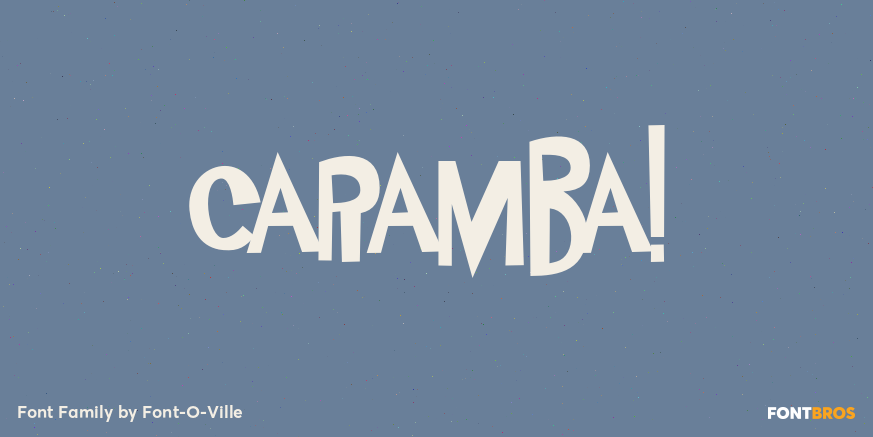
FunWacky Caramba! 0 84 FacebookTwitterPinterestWhatsApp 1 of 1 About Caramba! A happy, easy to use little fellow. Its tight spacing and kerning give it an extra funky look.  DOWNLOAD NOW